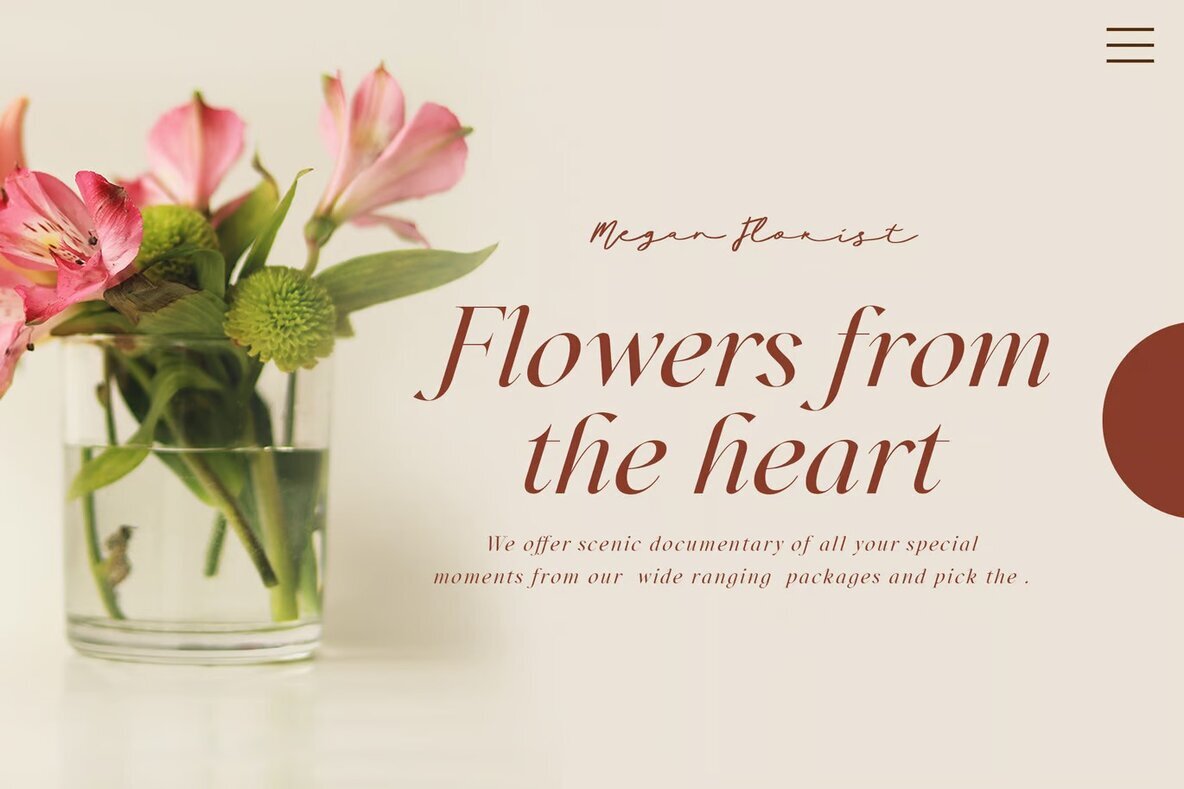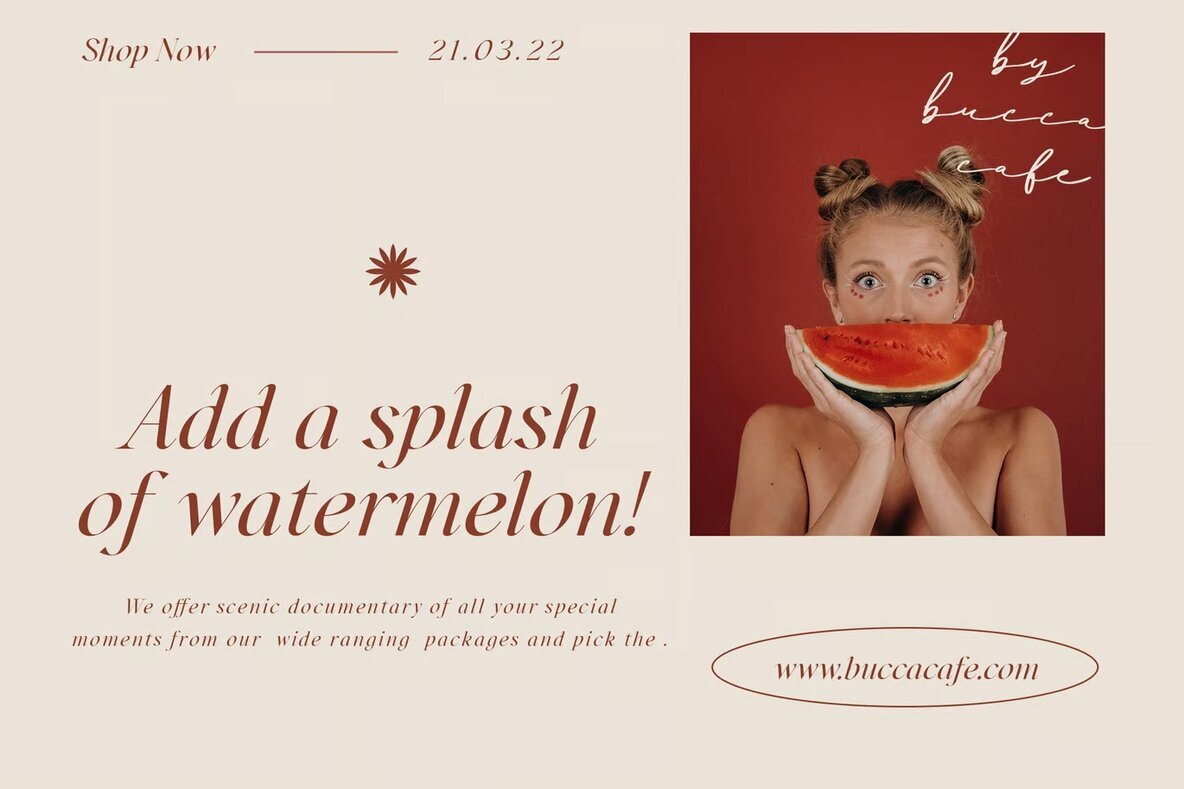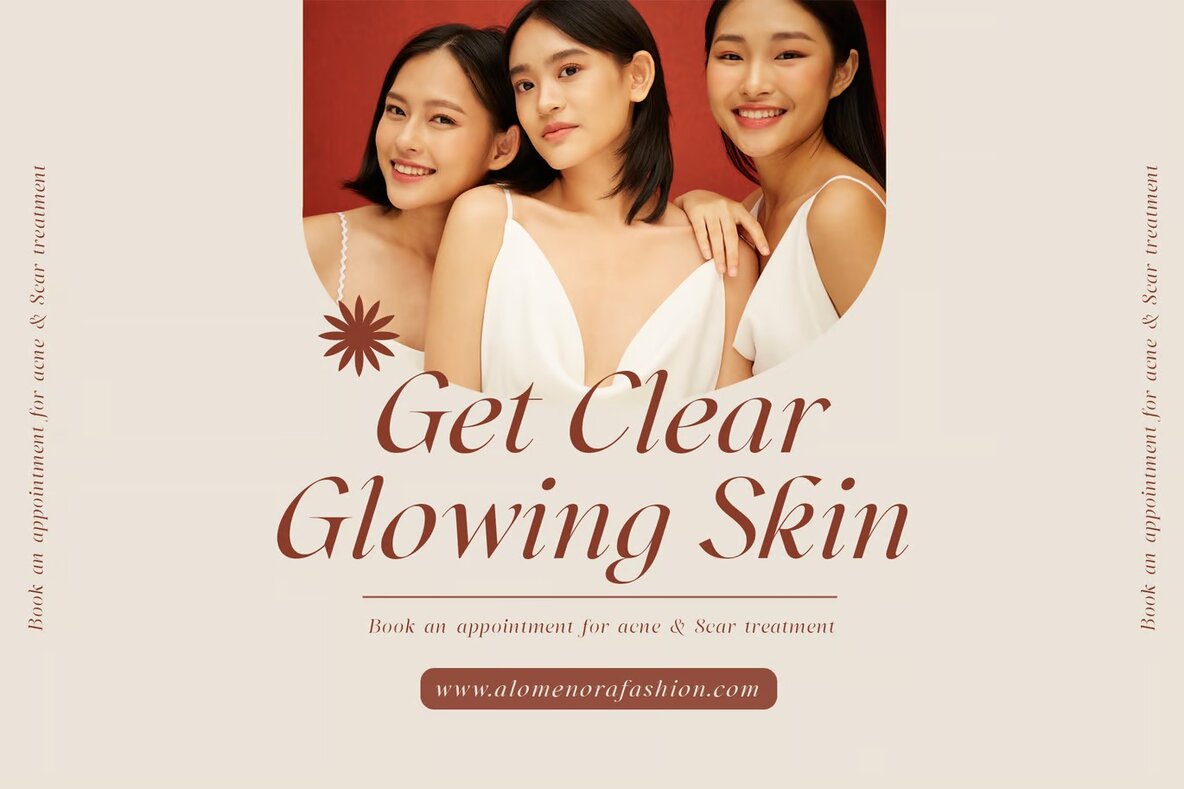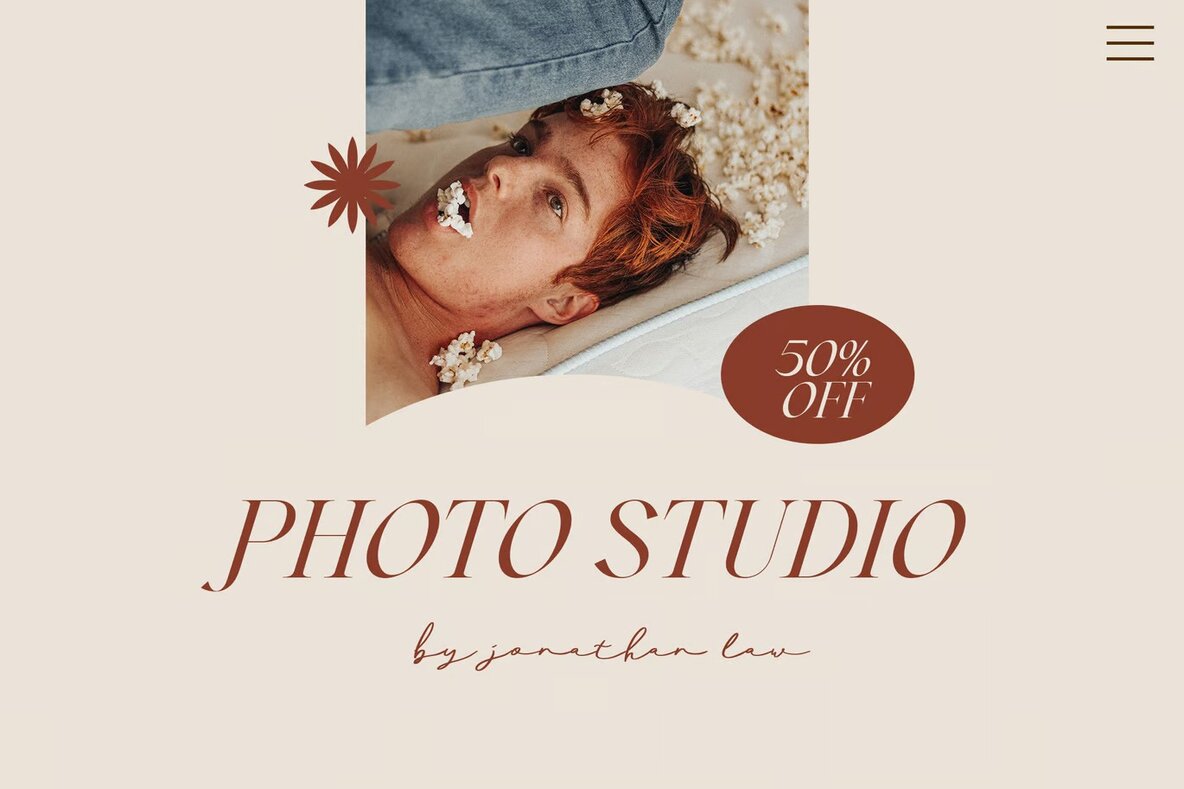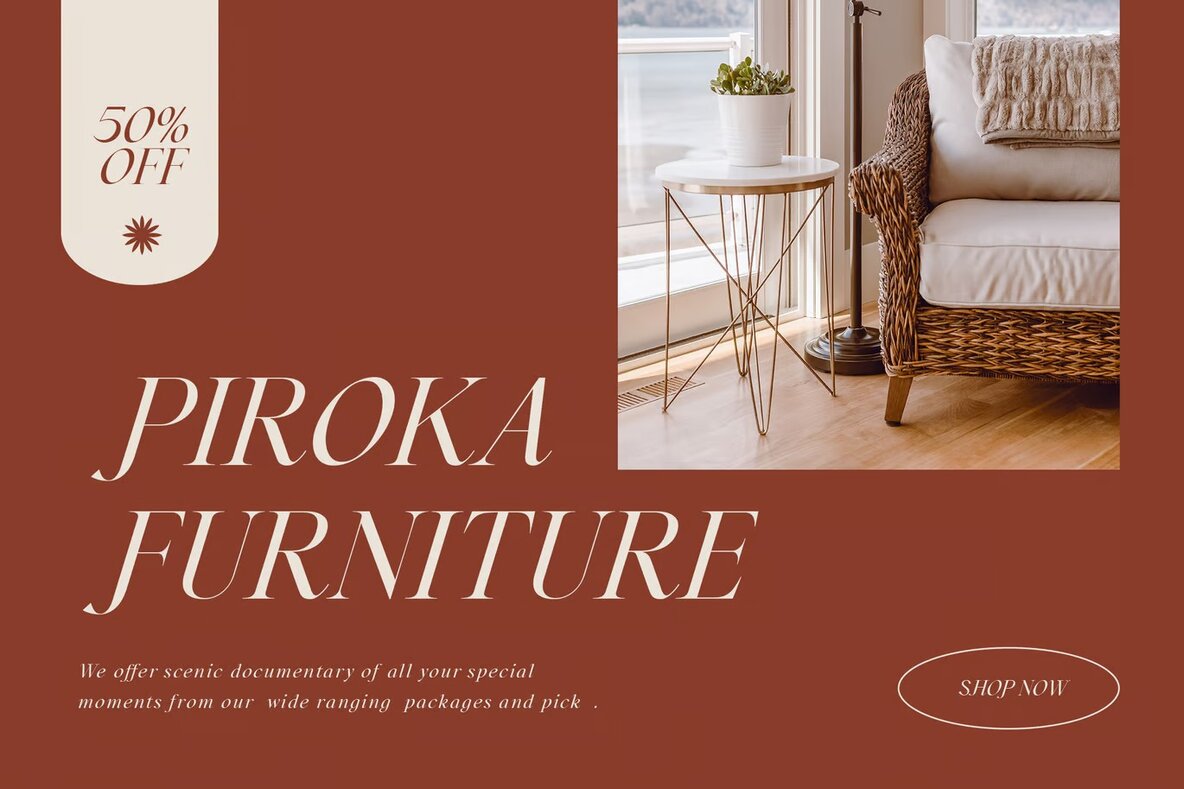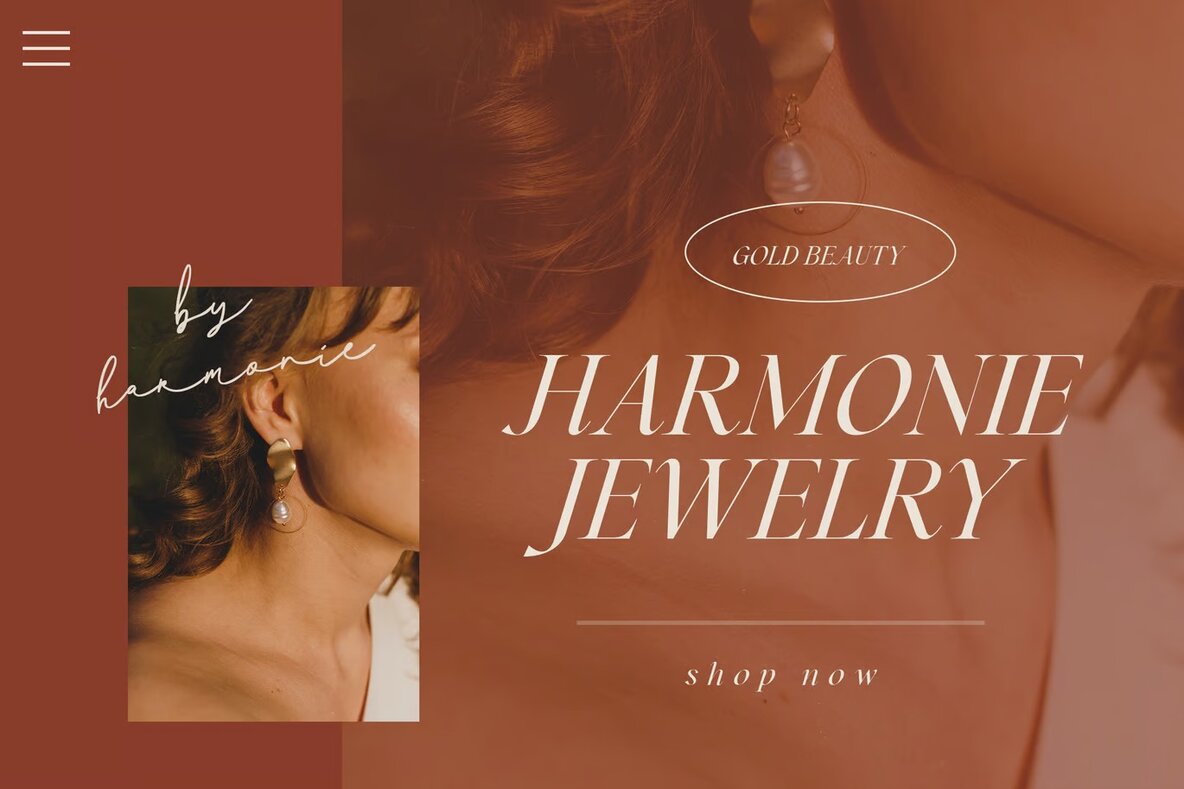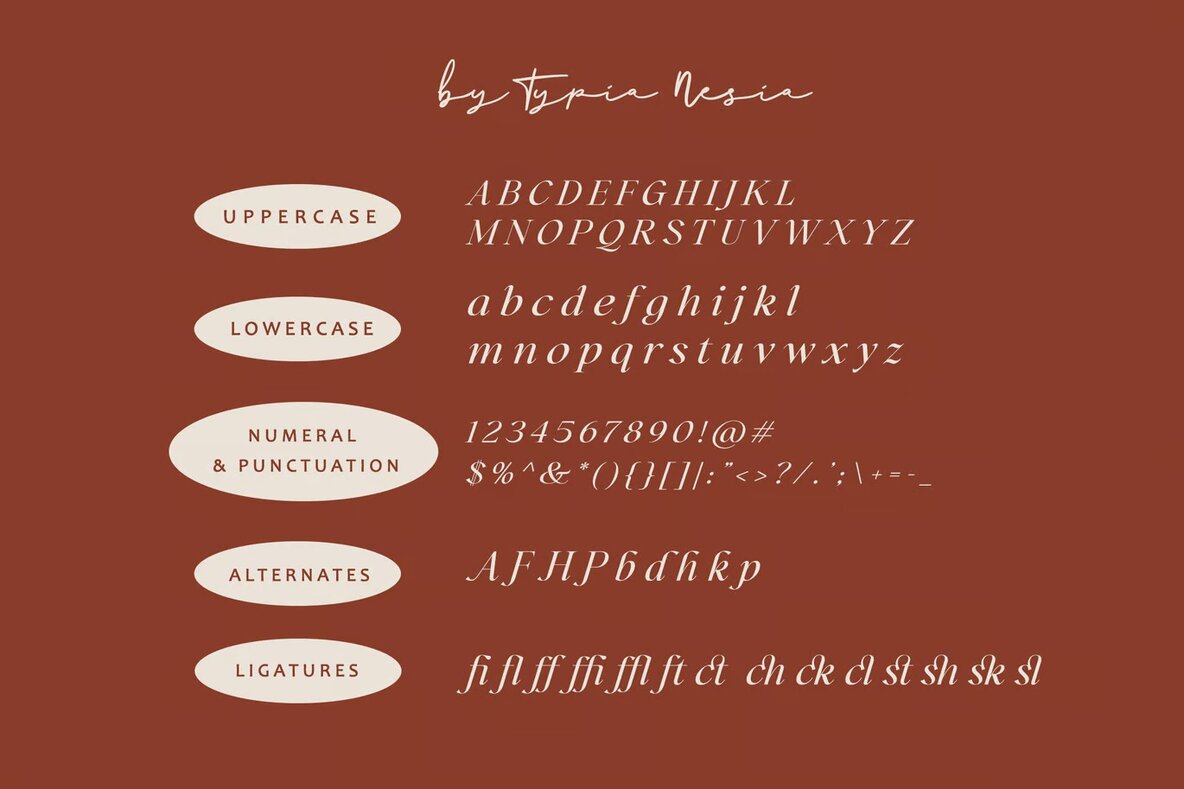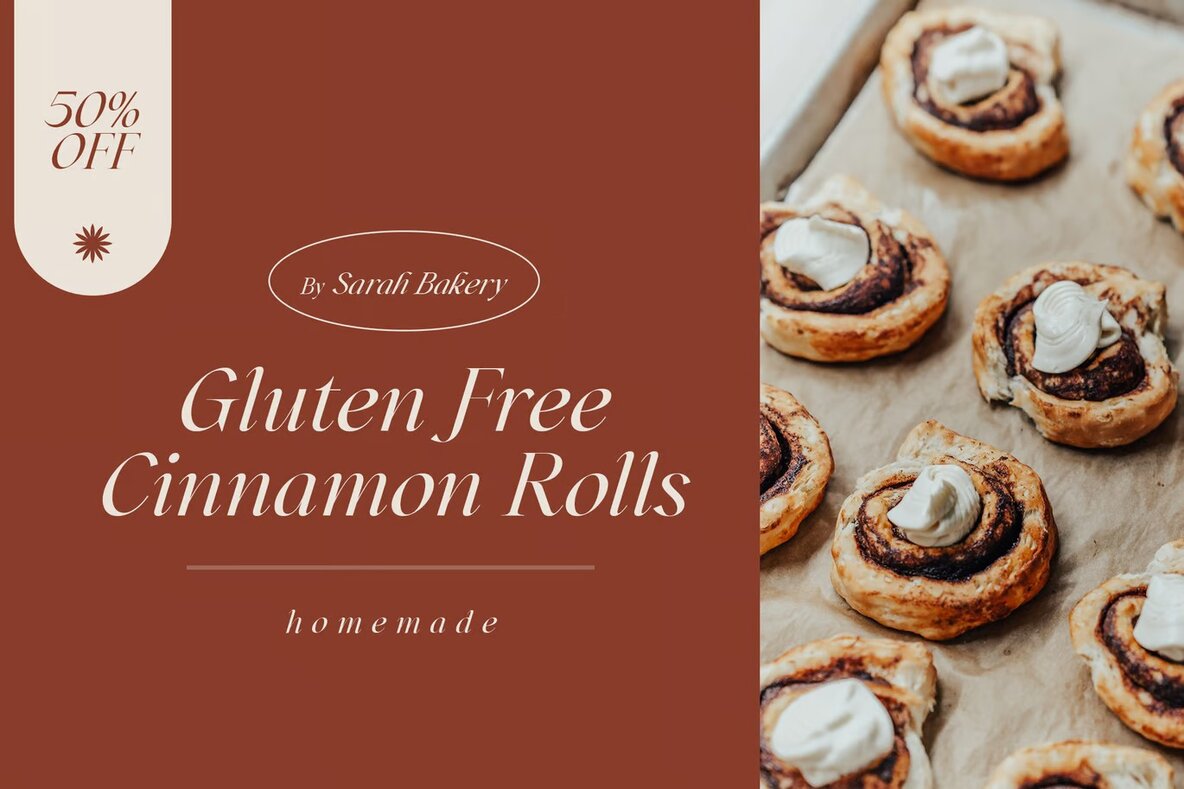
Quest and Ring Font
Quest and Ring Italic
Discover the elegance of Quest and Ring Italic, a beautifully crafted serif font that brings a touch of modern sophistication to your design projects. Featuring unique ligatures, this font offers the flexibility to create refined and cohesive typography designs. Perfectly suitable for a wide array of applications, it excels in luxury branding and editorial design, making it an ideal choice for fashion magazines, cosmetic brands, and upscale boutiques.
Enhance your creative ventures with the timeless charm of Quest and Ring Italic. Whether you're designing for museums, art galleries, or special event invitations, this font adds a distinct flavor of sophistication and style. Its versatility extends to home decor, book covers, and even digital spaces like blogs and modern advertising. Let your designs tell a story of elegance and expressiveness with this luxurious typeface.